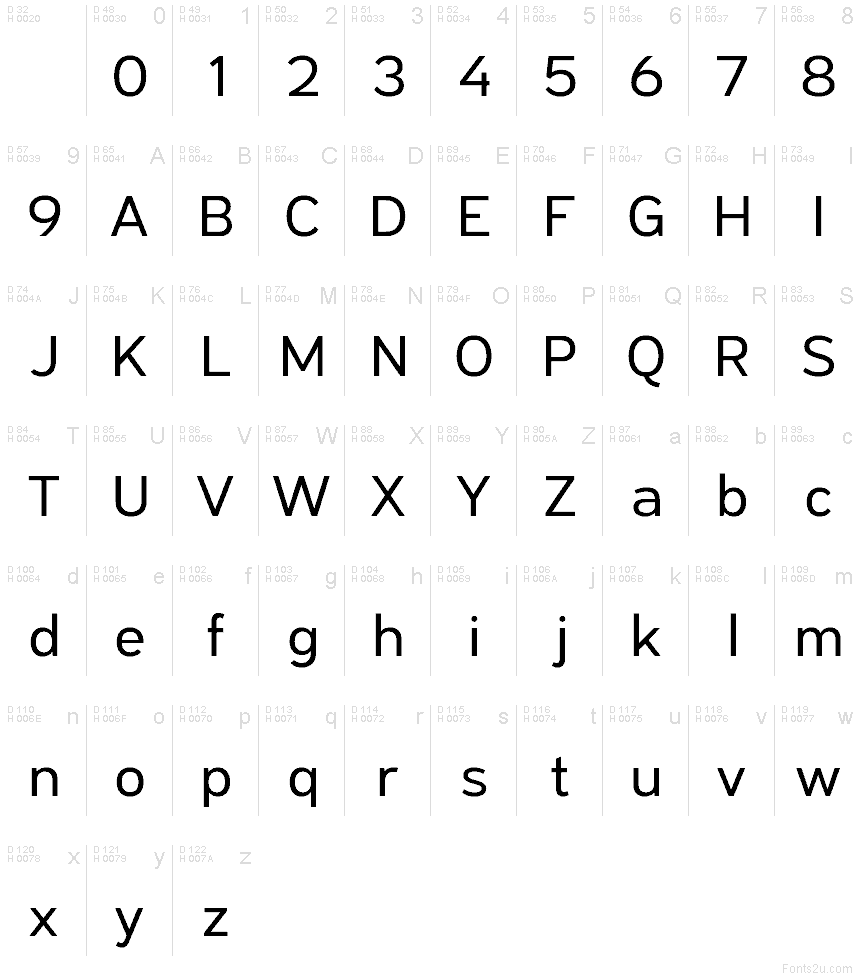
Exalted DEMO Regular
Exalted font by Zafara Studios is a free sans serif typeface. It defaults to a crisp, evenly weighted voice with clean joins and generous counters, so text stays calm and legible even when space gets tight. The letters feel streamlined without going cold—subtle curves soften the edges, giving headlines a confident snap while body copy reads smoothly.
Using Exalted, you get tidy rhythm and modern clarity that shines on app interfaces, tech branding, slide decks, editorial titles, posters, and product packaging. This free font handles small sizes without collapsing and scales up with punch. Pair it with a warm book serif for long reads, or track it slightly tighter for bold, compact headers.